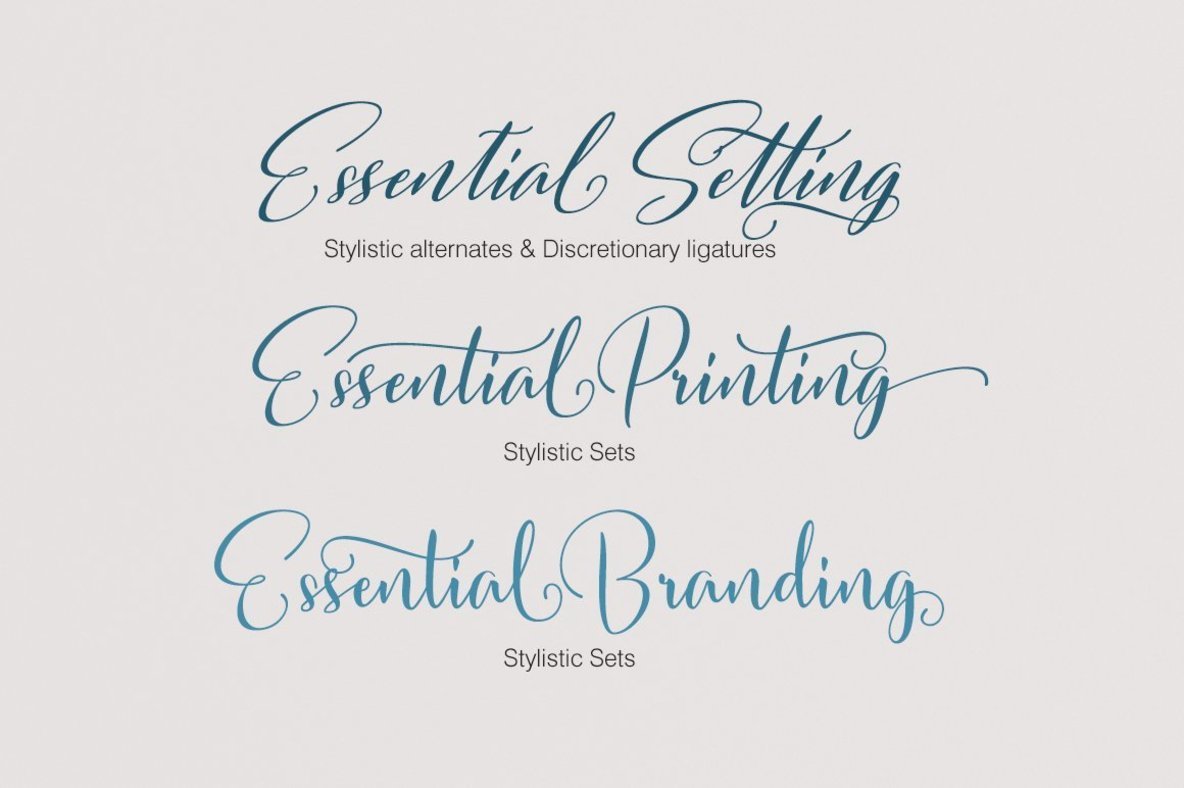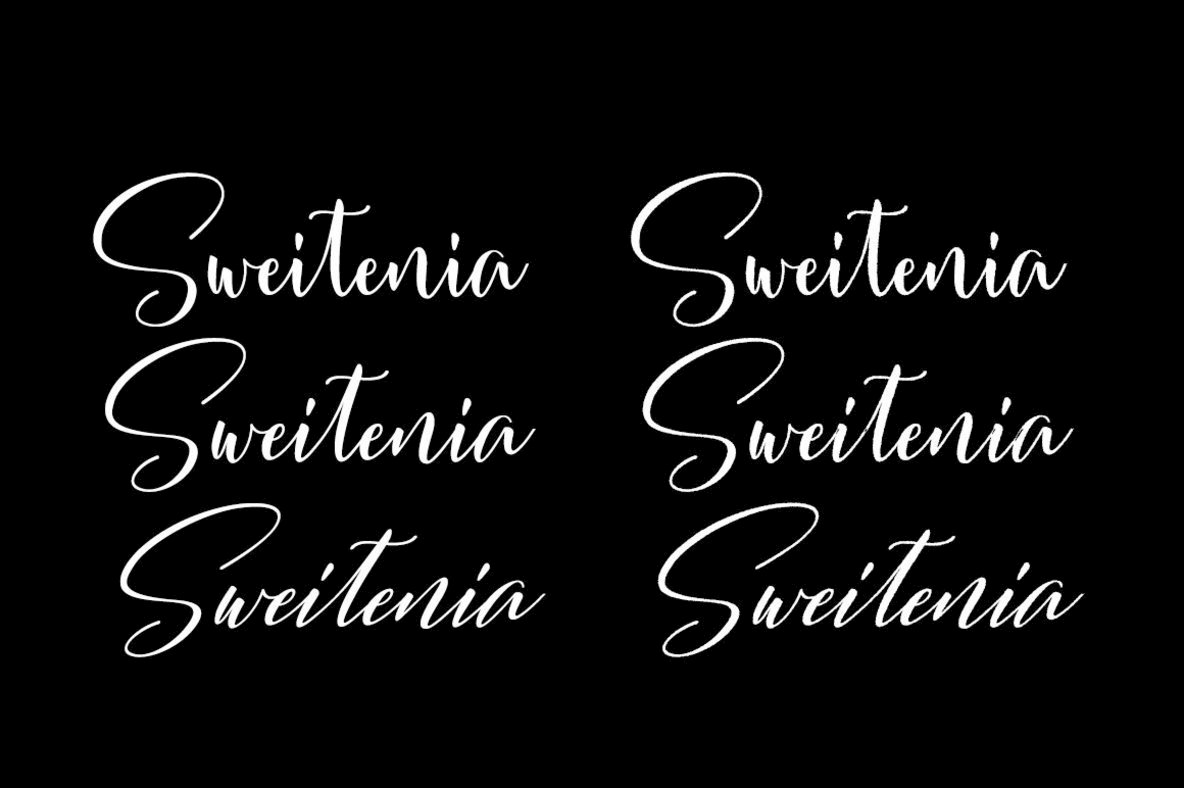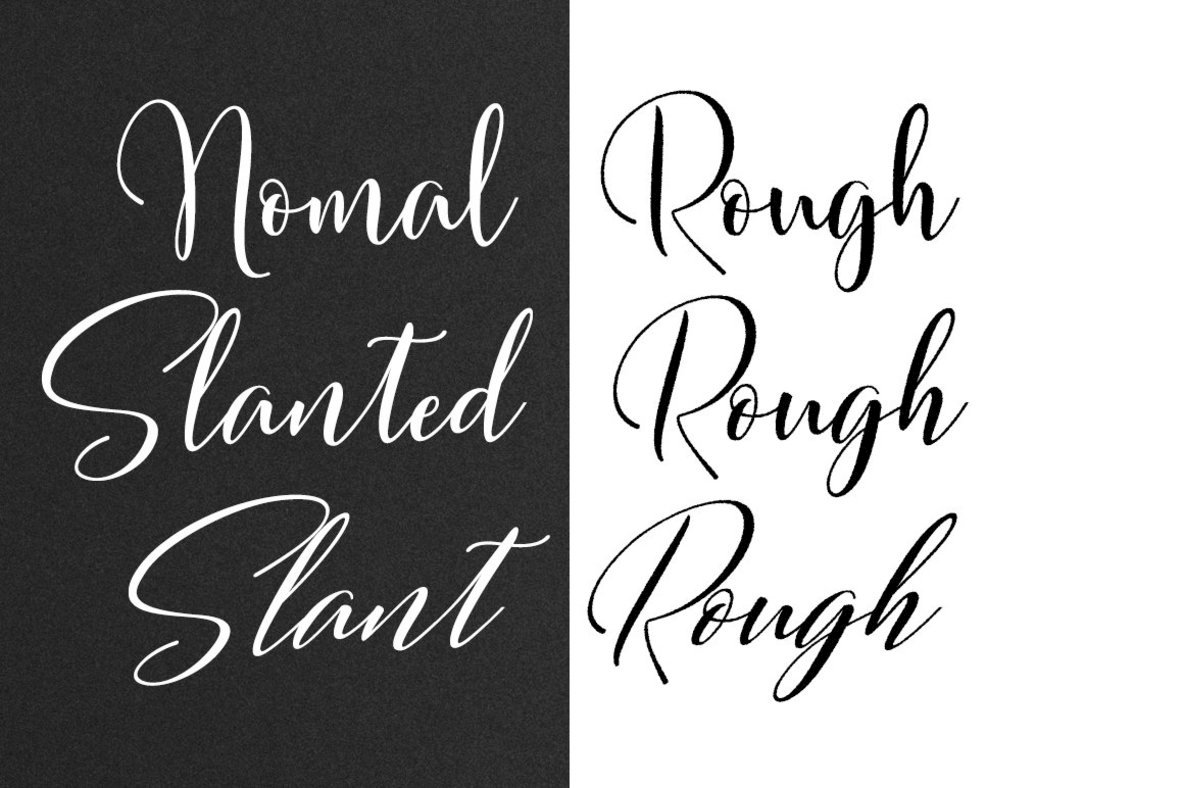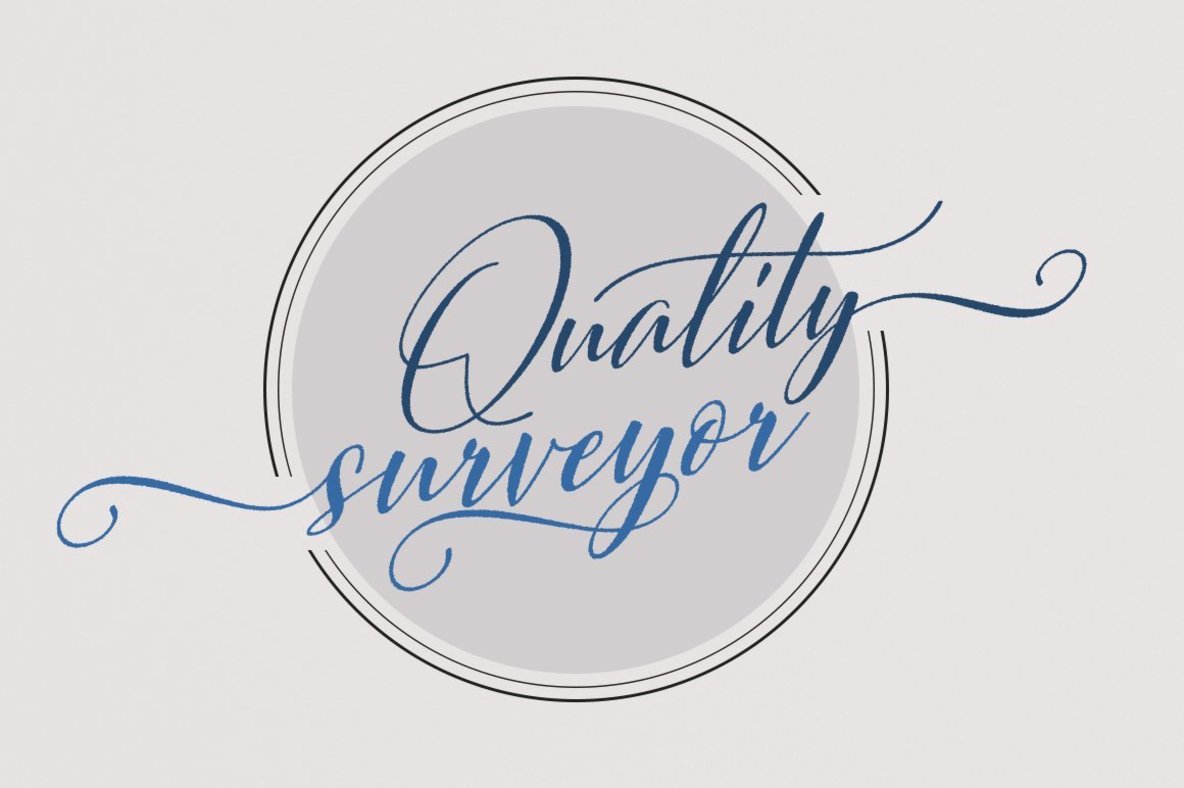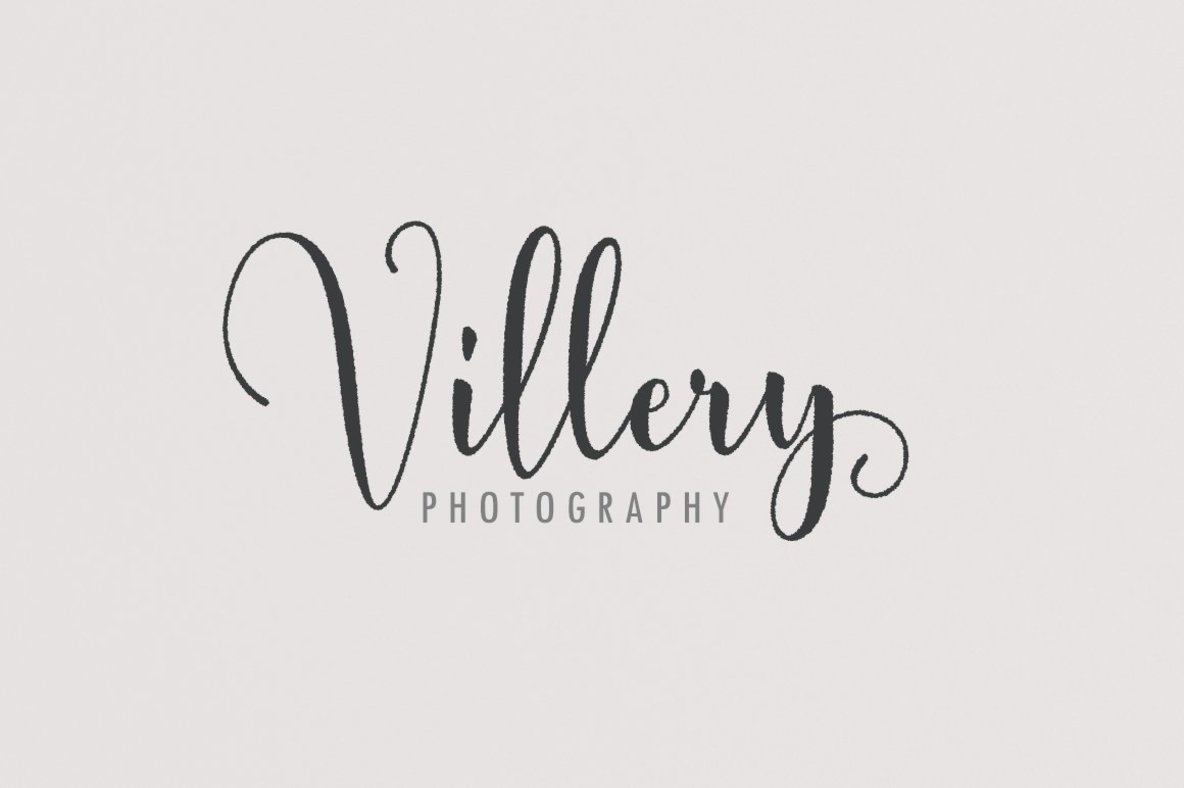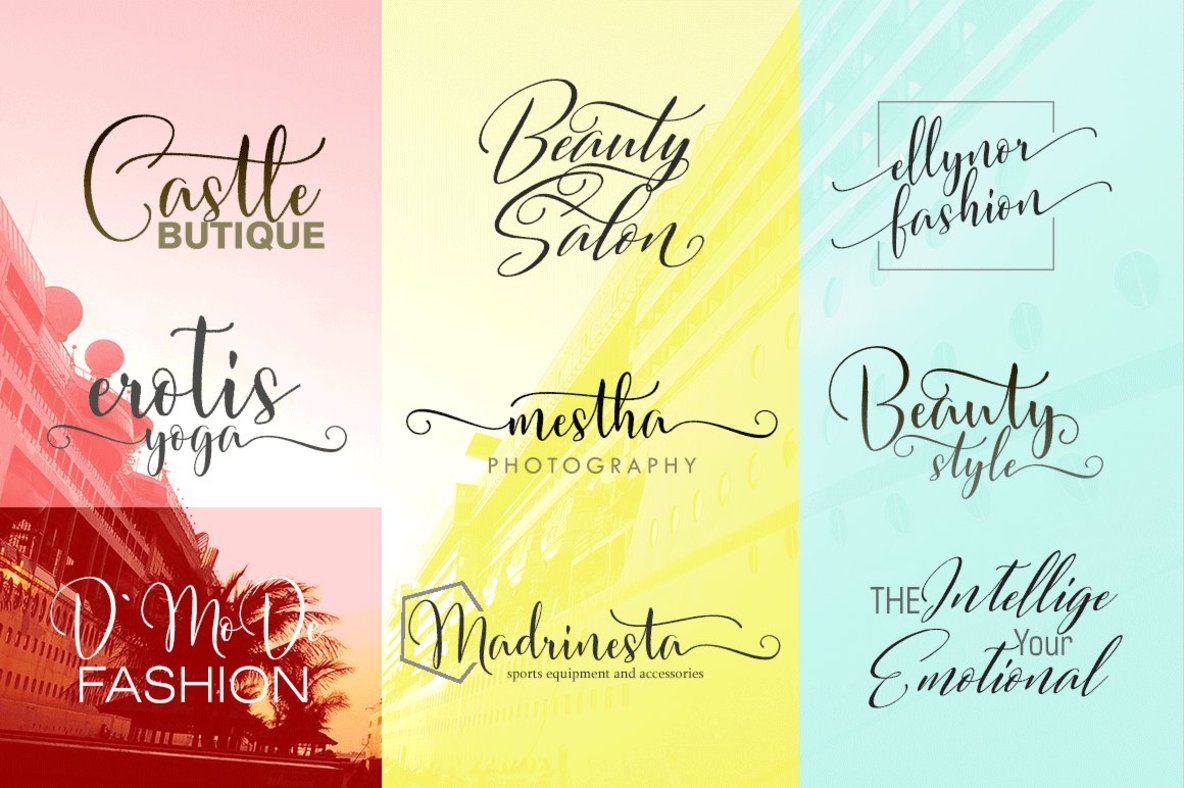
Sweitenia Font
Sweitenia is a script font that has a distinctive handwriting, it is perfect for making certain labels and business events and you can use them for unique works. Alternate characters in the Sweitenia font are divided into OpenType features such as Stylistic Alternate, Stylistic Sets, Swash and Ligature. OpenType features can be accessed by using OpenType smart programs such as Adobe Illustrator and Adobe InDesign. can also be accessed through the character map